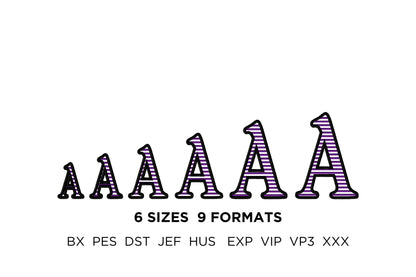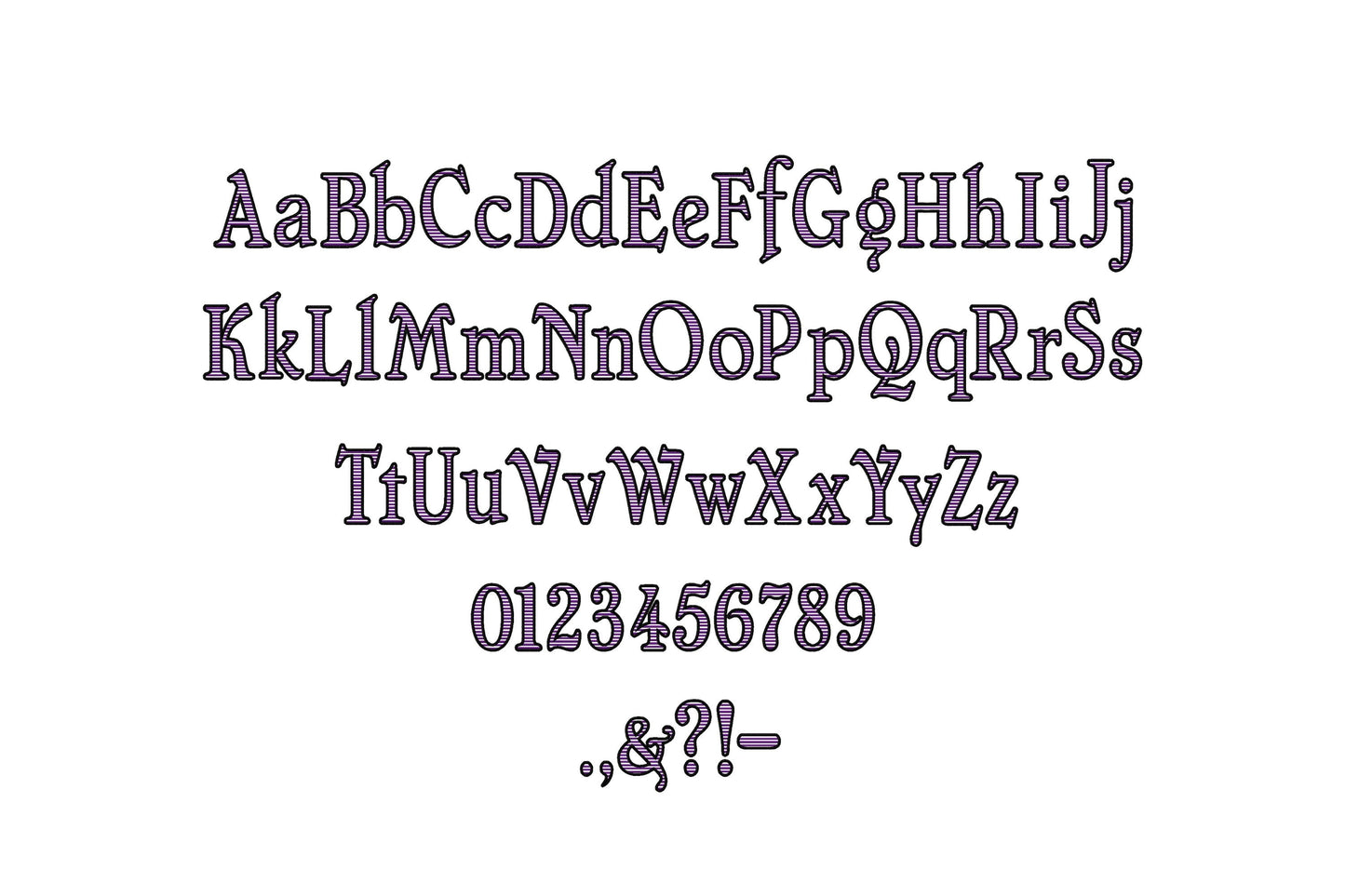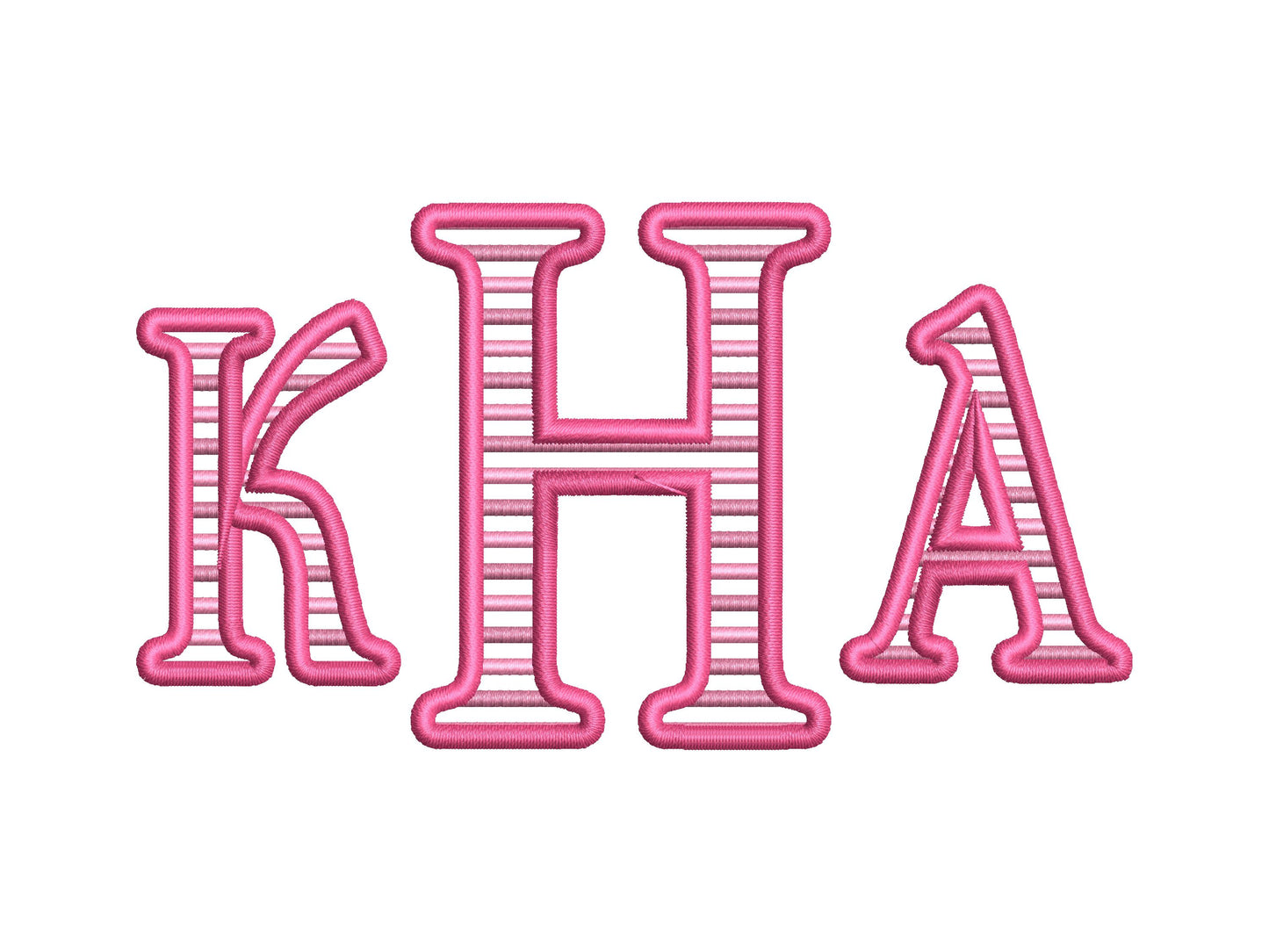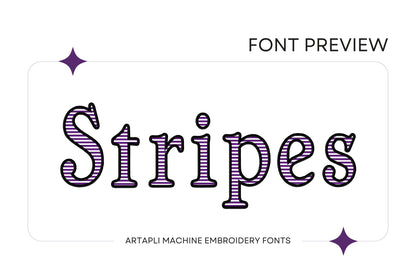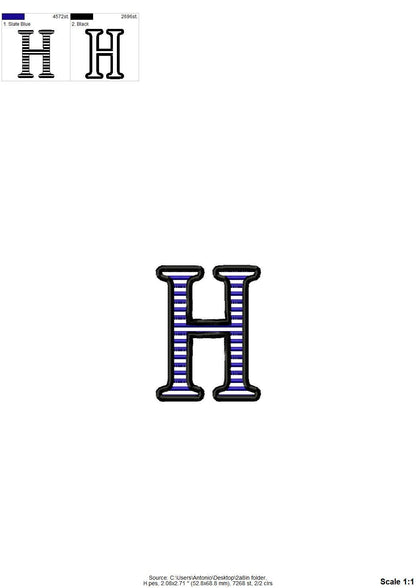
Striped Classic Stitch Alphabet
Or click to open the linkA striped monogram font with lined stripes you can see through. Classic for names, monograms, shirts and pillows.
Uppercase and lowercase letters, numbers 0 to 9 and punctuation, in six sizes: 1.6, 2, 2.4, 2.8, 3.4 and 3.7 inches. The fabric shows between the stripes.
- Striped see-through font
- Uppercase and lowercase letters, numbers 0-9, punctuation
- 6 sizes, 1.6 to 3.7 in